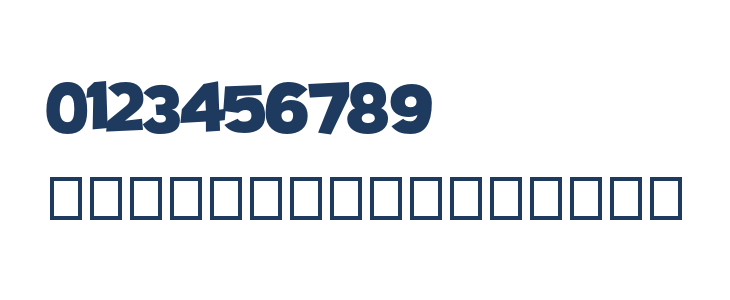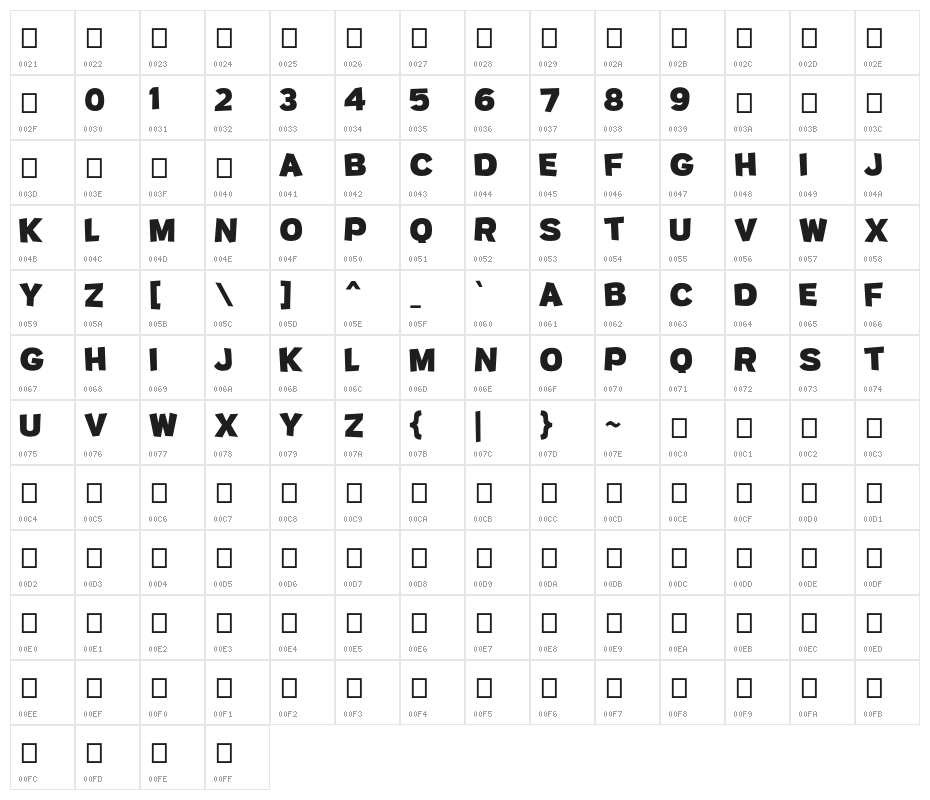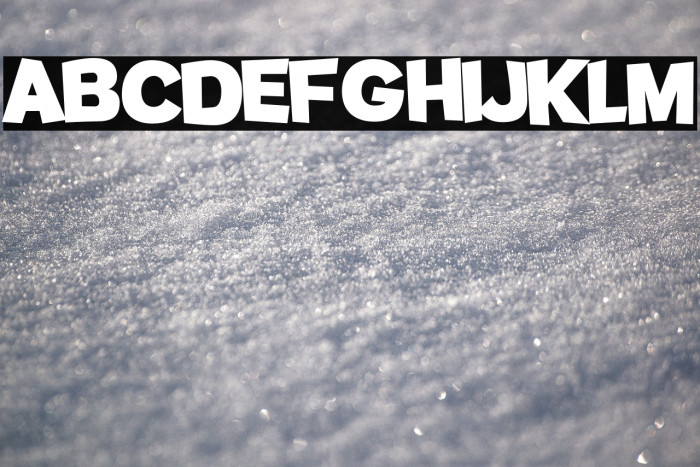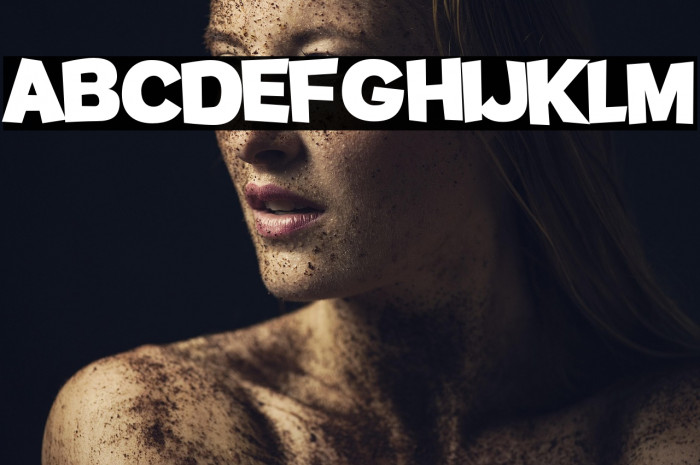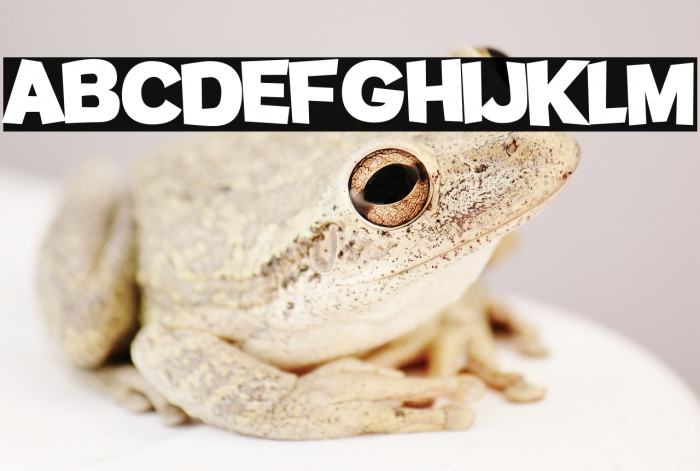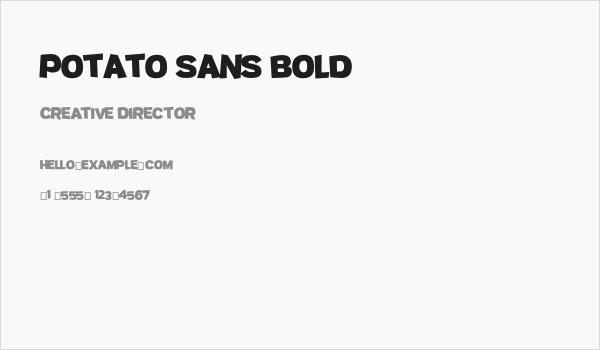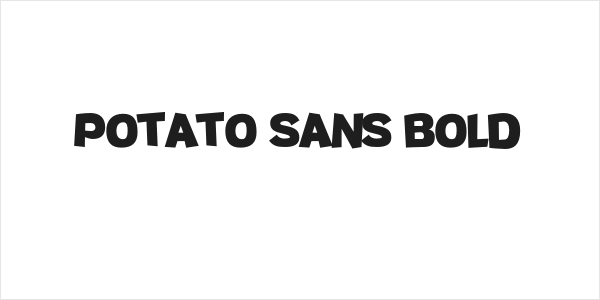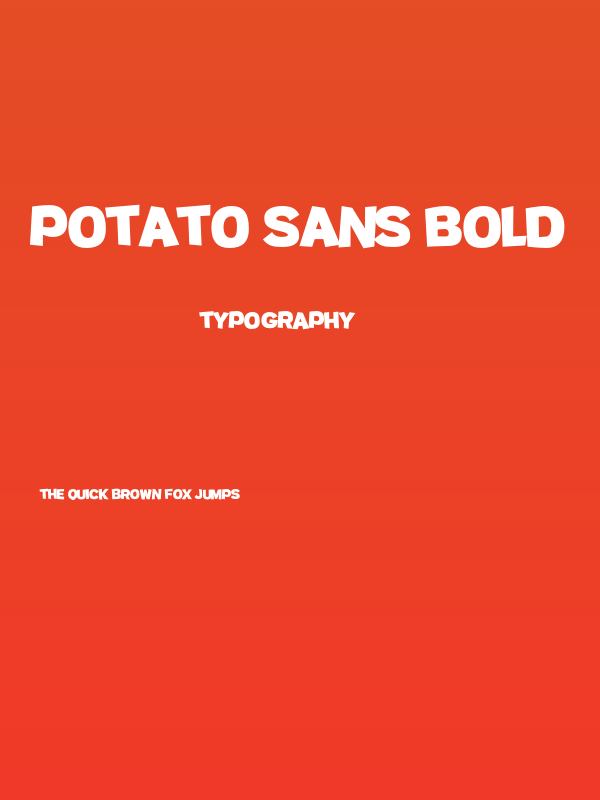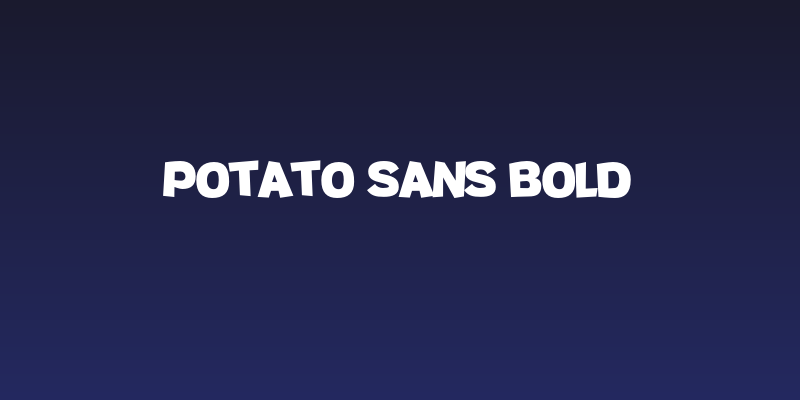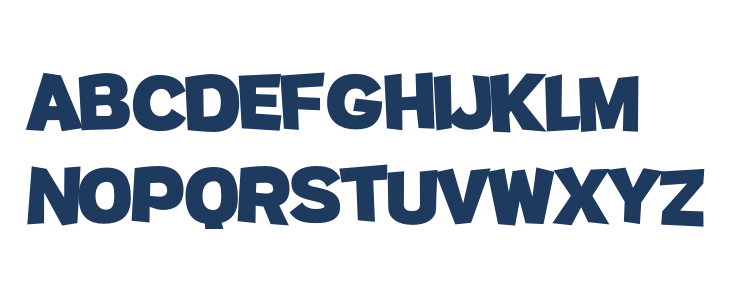
Potato sans Bold Font
Potato sans Bold Description
This font features a bold and playful design with exaggerated, uneven strokes that give it a dynamic and energetic appearance. The characters are slightly tilted and have a cartoonish quality, making them stand out with a sense of movement. The thick, heavy lines contribute to its boldness, while the irregular shapes add a whimsical touch. This font is ideal for projects that require a fun and eye-catching style, such as children's books, comic strips, or playful branding. Its unique character shapes and bold presence make it suitable for headlines and titles where attention-grabbing is essential.
Overall StylePlayful, Cartoonish
Use CaseHeadlines, Titles, Branding
Proposed ProjectsChildren's books, comic strips, playful branding, headlines, and titles.